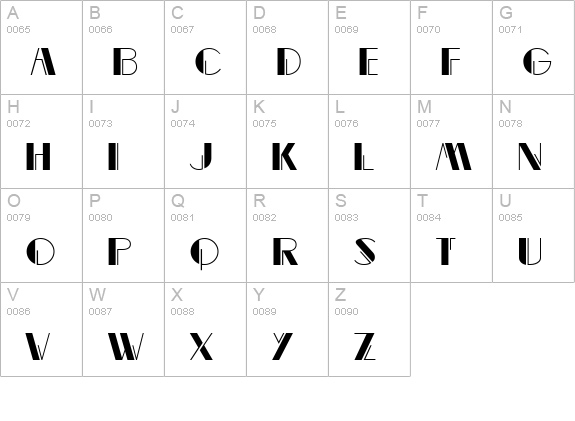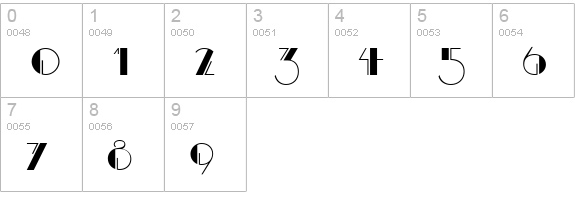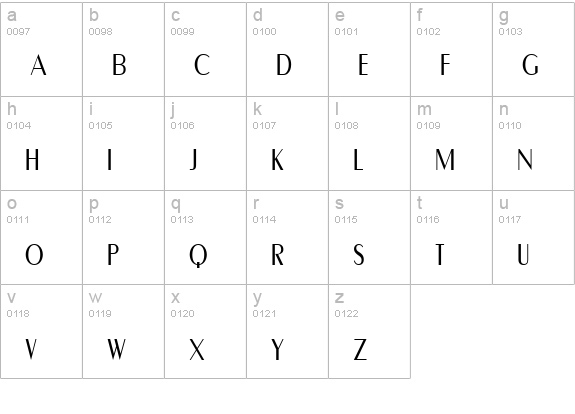
Cravat Display SSi Font Details
Cravat Display SSi font is a sophisticated and elegant typeface that exudes charm and refinement. Its ornate details and graceful curves make it a perfect choice for adding a touch of class to your designs. The font's intricate design captures a sense of timeless beauty, making it ideal for projects that require a touch of sophistication. What sets Cravat Display SSi font apart is not only its stunning aesthetics but also its versatility. Whether you're designing a wedding invitation, a luxury brand logo, or a high-end magazine layout, this font will elevate your work to new heights. Best of all, Cravat Display SSi font is completely free to download at FontsMarket.com. So, you can add this exquisite typeface to your collection without breaking the bank. Don't miss out on the opportunity to enhance your designs with the timeless beauty of Cravat Display SSi font.